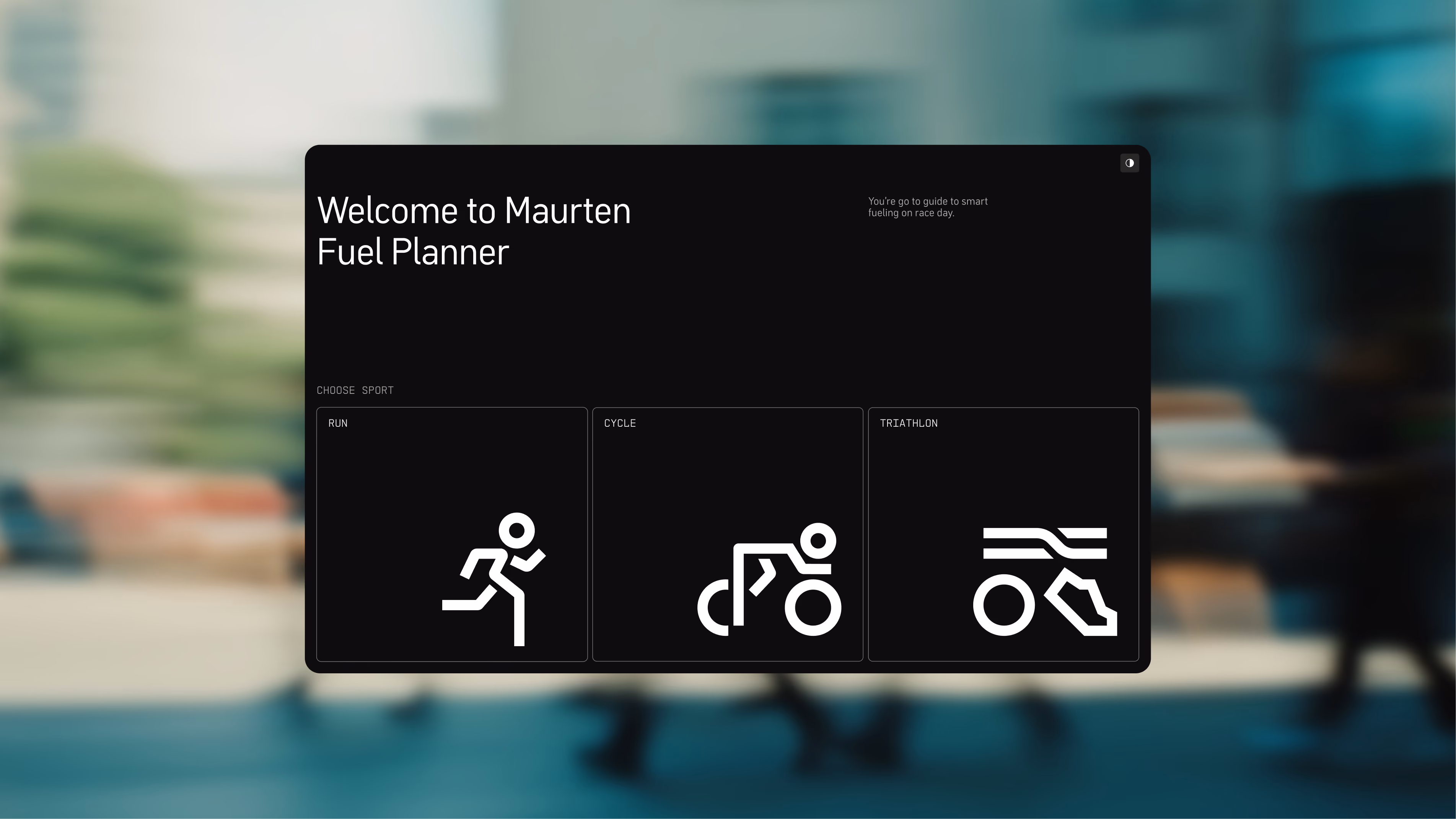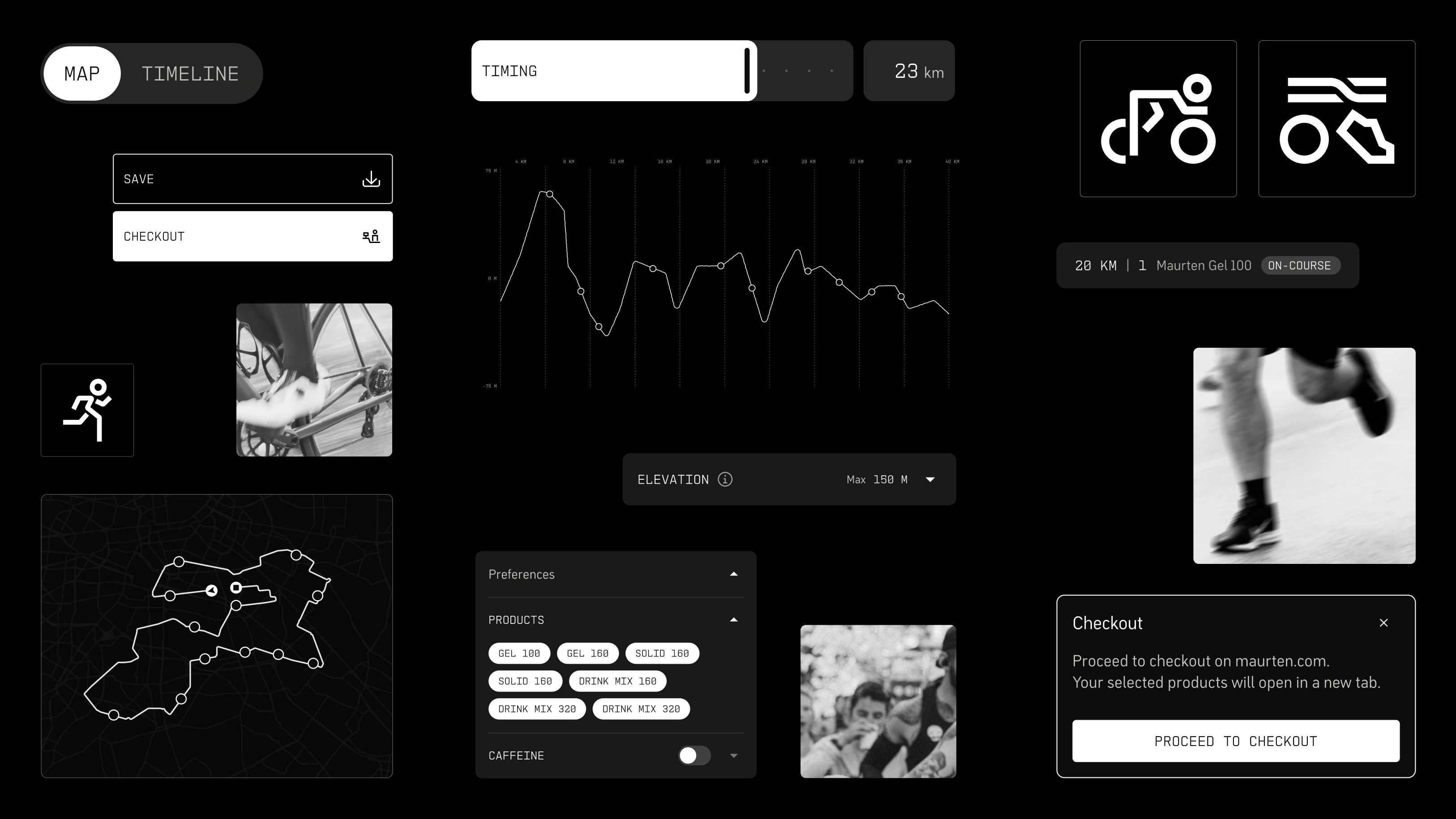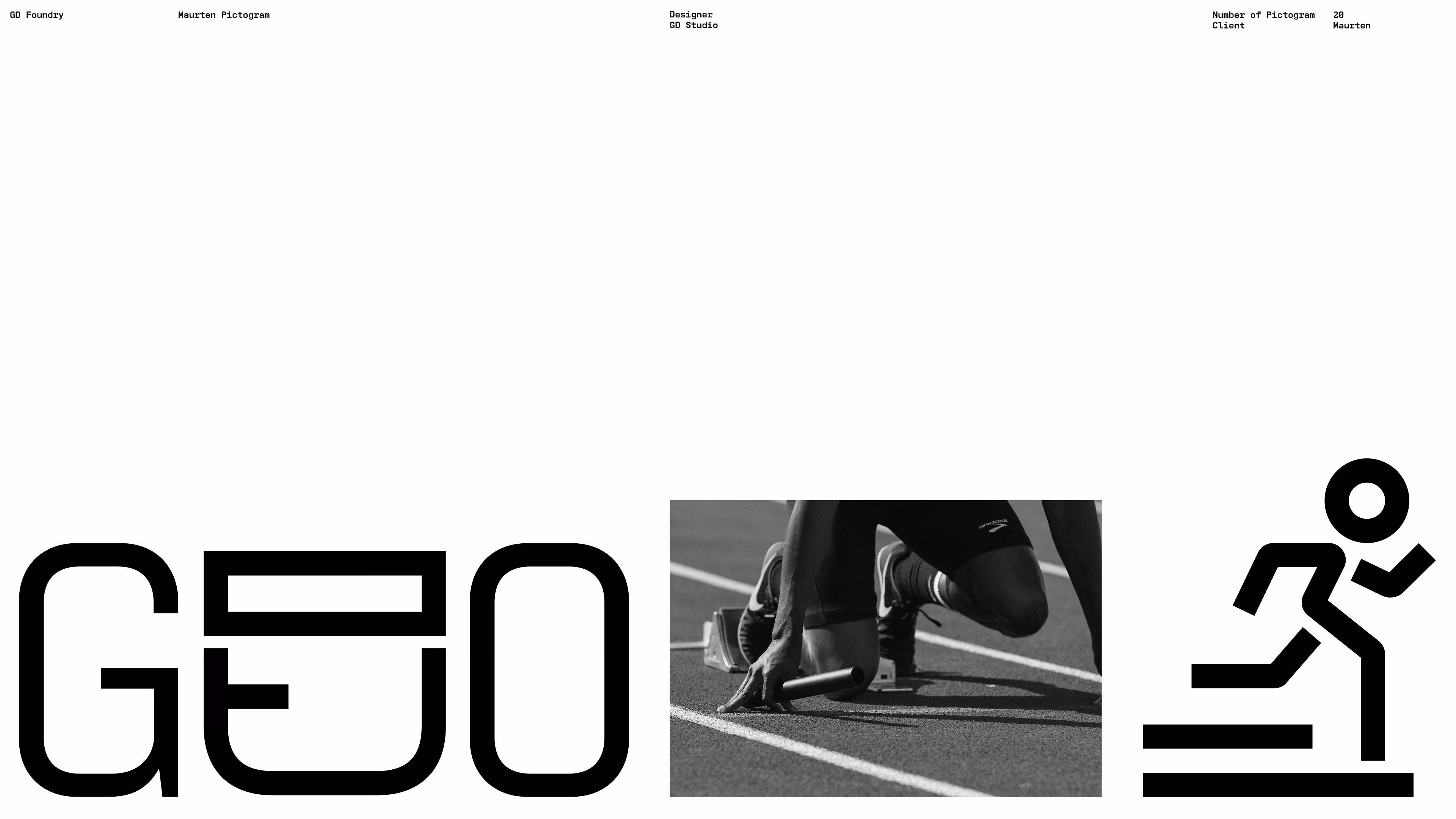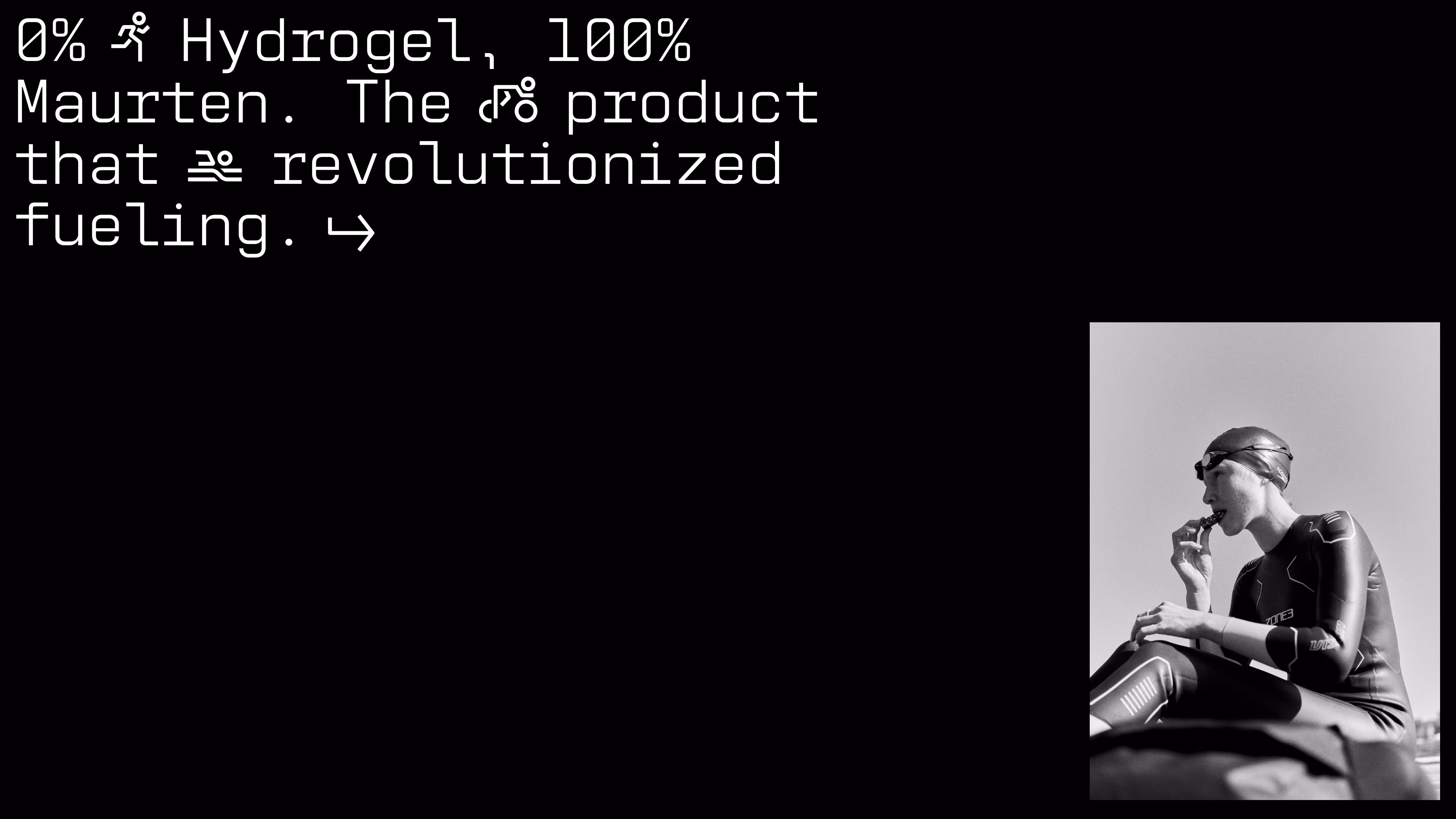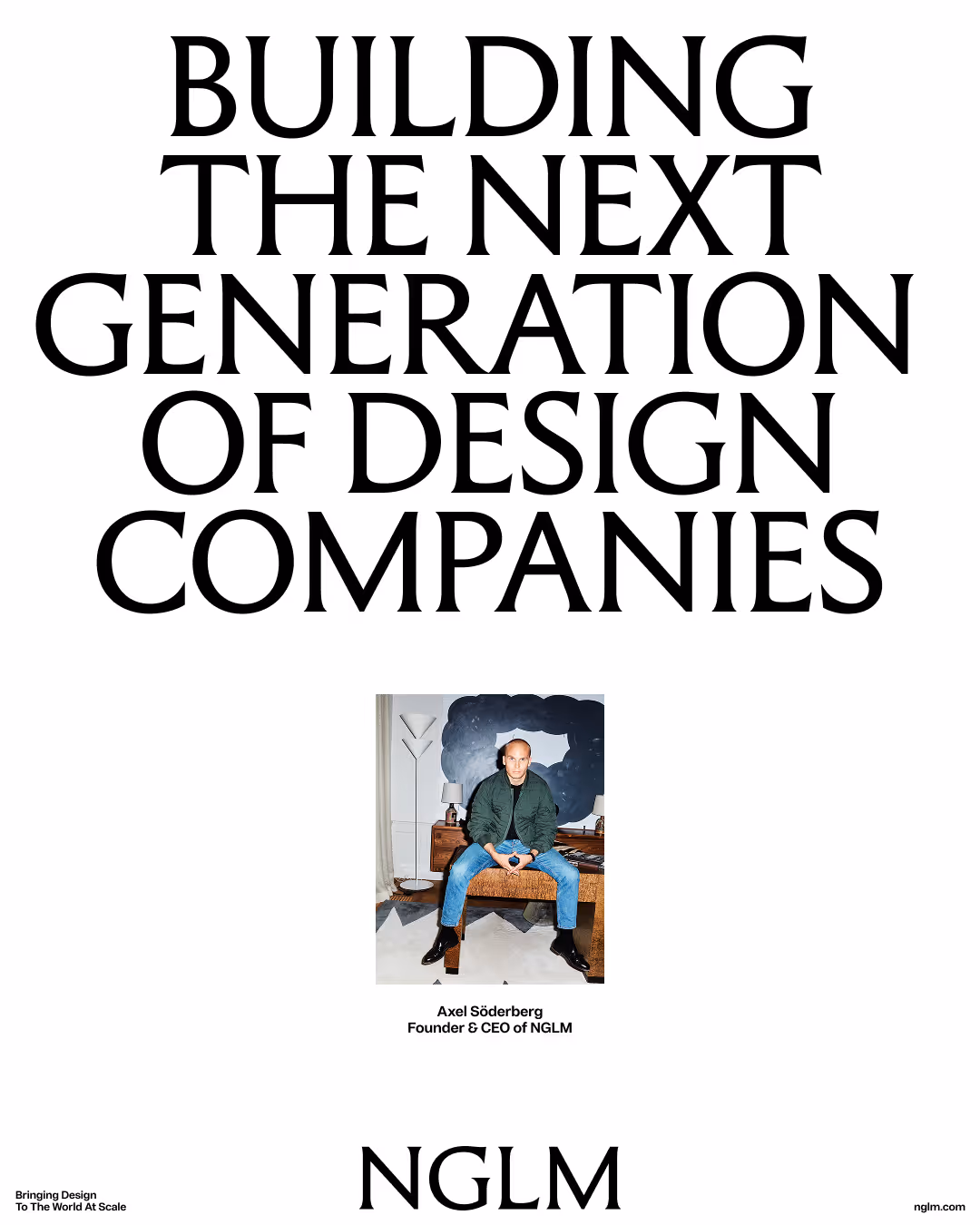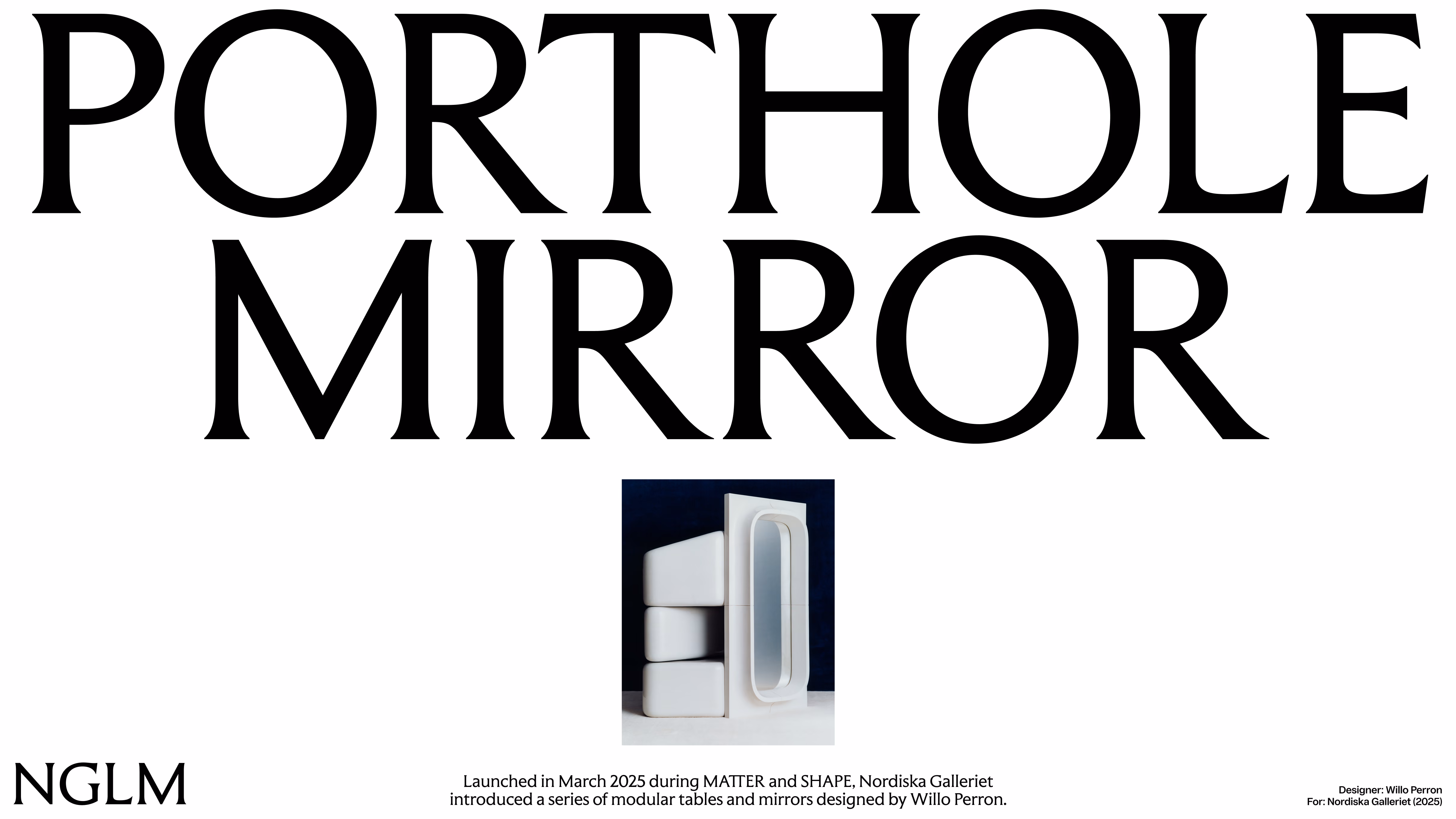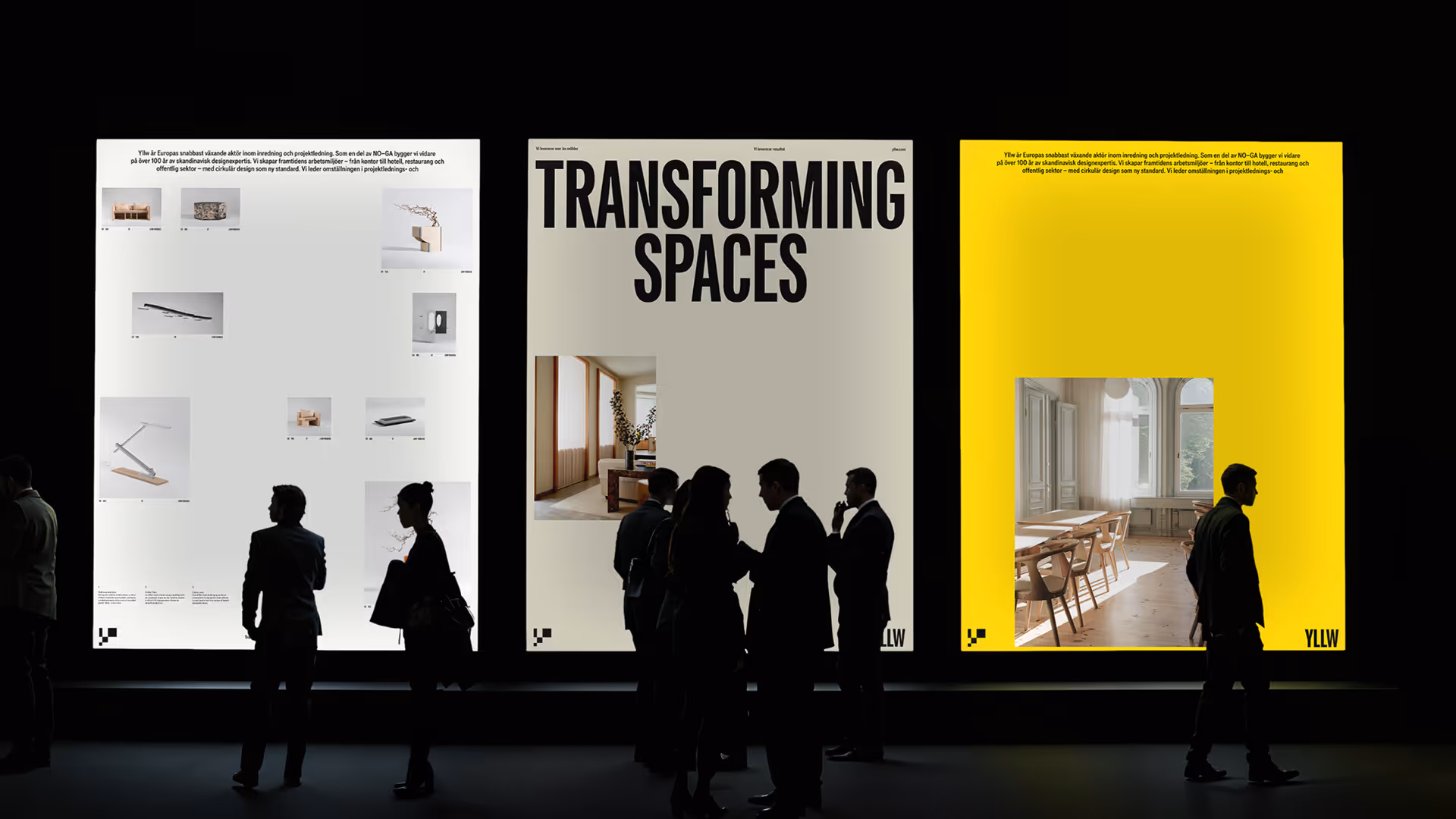
Bespoke fonts tailored to your brand
We create bespoke typefaces tailored to your brand, giving your identity a unique voice and distinctive expression. Every letter, number, and symbol is designed with your brand in mind and optimized for your specific needs, from digital and print to logos and signage. You have full control over the style, proportions, weight, and finer details.
Maurten Sans/Mono
5 Family, 18 Styles
To support Maurten’s evolving brand, we expanded their existing typeface into a more flexible, bespoke system. The update introduced two new weights, Light and Black, along with additional styles across Condensed and Wide widths. Each variant was carefully refined to ensure consistency, with subtle adjustments for balance and clarity.
Maurten Pictogram
1 Family, 20 Pictogram
We extended Maurten’s design system with a tailored set of pictograms, built on the same principles as the bespoke typefaces. Using the geometry and angles of Maurten Mono as a foundation, the icons integrate seamlessly with the typographic system, creating a clear and consistent visual language across contexts.
NGLM
(Available as retail)
1 Family, 7 Styles
For NGLM, we created a bespoke typeface, GD Trio, drawing inspiration from the classical proportions and refined letterforms of Roman inscriptions. Rooted in centuries of typographic history, we reinterpreted these forms for a contemporary context, creating a distinctive typeface that brings depth, elegance and craftsmanship to NGLM’s identity.
YLLW
(Available as retail)
4 Family, 16 Styles
For Yllw, we created a bespoke Grotesk variable font built around the idea of transformation. Designed to shift, adapt, and respond to its surroundings, the typeface reflects Yllw’s approach to reshaping spaces and unlocking their potential. Its variable nature allows the typography to move seamlessly between different expressions, creating a flexible and dynamic voice that mirrors Yllw’s work. Designed by GD Foundry, the typeface gives the identity a distinctive typographic foundation built for change.
Praxis
1 Family, 4 Styles
Rooted in the classical serifs of medical journals and refined into a humanist semi-sans, GD Praxio carries warmth, authority and credibility in equal measure. Its proportions and stroke modulation set a natural reading rhythm, legible across long-form research and real-time chat alike, confident without turning cold. It signals trust without rigidity, clinical, yet human. Built for the moments AI speaks about our bodies, our health, our hearts.
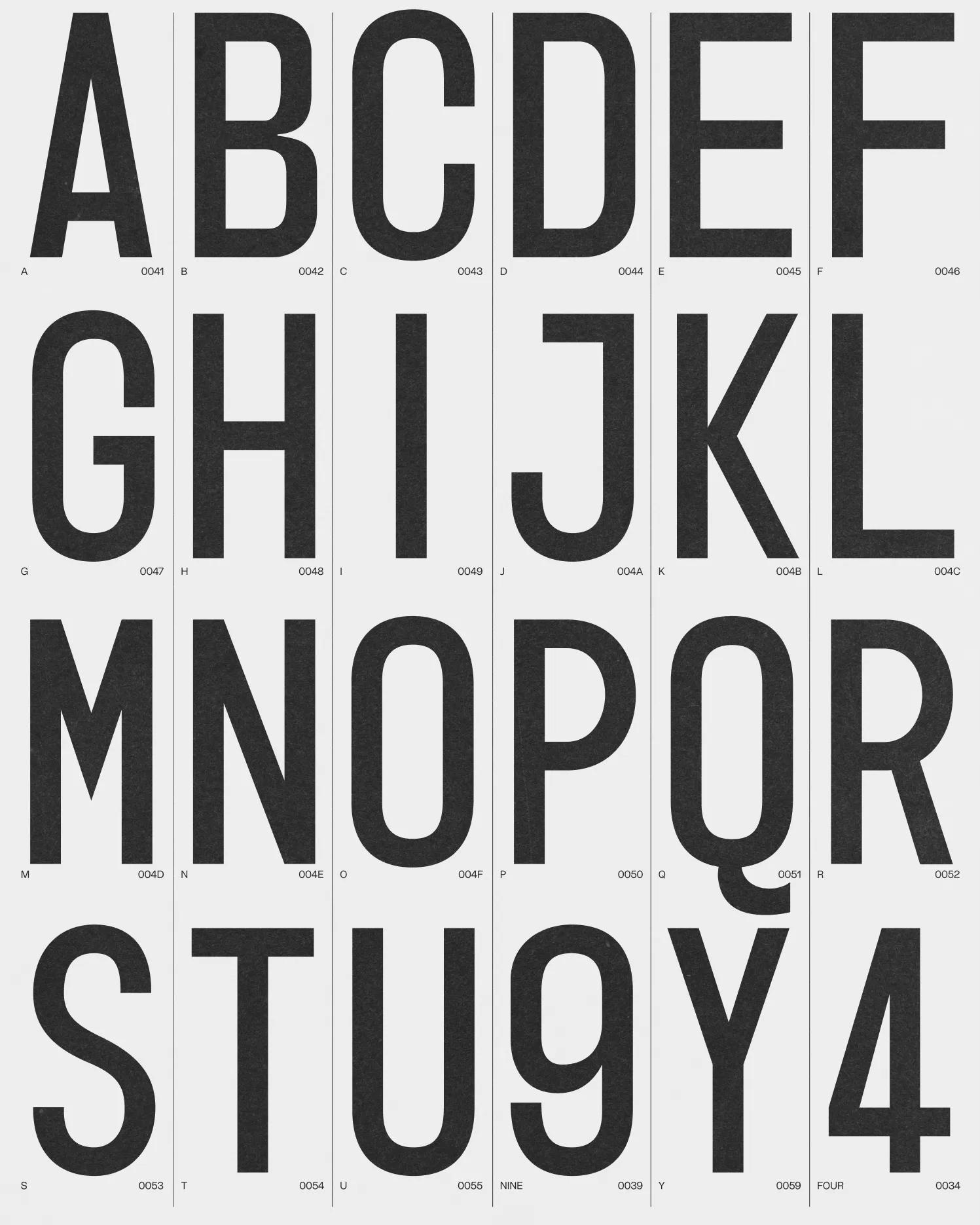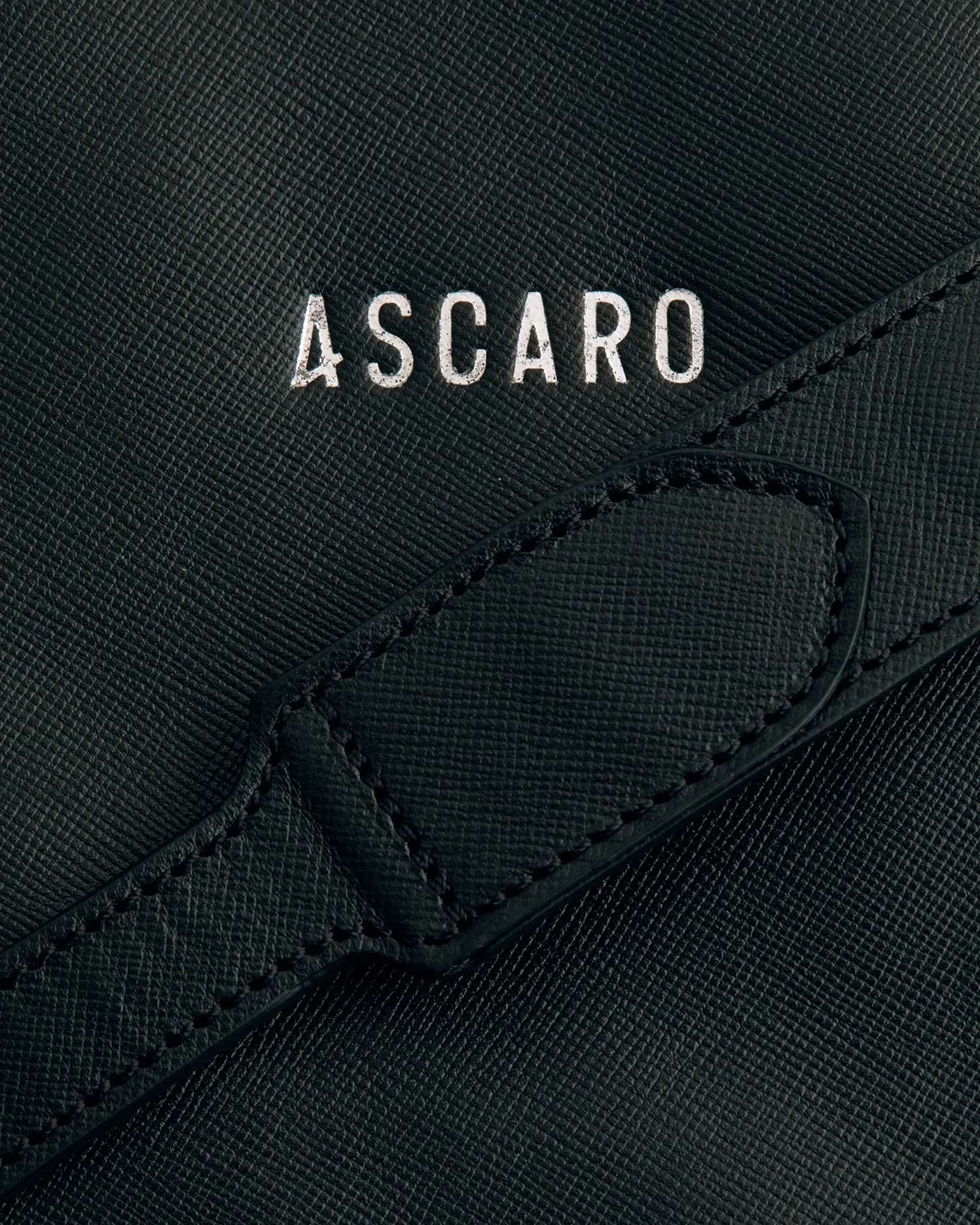
Nicoya
1 Family, 5 Styles
For Nicoya, we created a bespoke typeface inspired by the organic forms and graceful curves of Art Nouveau. Designed to feel gentle, natural, and timeless, the letterforms balance softness with a distinct character, reflecting Nicoya’s focus on purity, vitality, and balance. Created as a core part of the identity, the typeface gives the brand a unique typographic voice that feels both refined and alive.
Ascaro
1 Family, 1 Style
A padel court measures twenty by ten meters, a double square, a ratio unique to the sport. Ascaro Sans is drawn straight from it, every letter, cap height, counter, stroke, governed by the court's own geometry.   The alphabet is uppercase only, flat and engineered like court signage and match numbering. Straight-cut terminals, even stroke weight, numerals built for instant reading, the clarity a scoreboard needs.   One letter breaks the system: the A, its leg kicking outward to trace the ball's bounce off the glass, the move that defines padel. Not a flourish, the game's physics drawn into the letterform. Ascaro Sans, a typeface built on the court it plays on.
When we created our type foundry, we envisioned a place built by designers, for designers. We understand the brand equity that lives inside a truly well-crafted typeface, the cultural weight it carries, the emotion it shapes, and the quiet authority it brings to any identity.
Lyko
1 Family, 9 Styles
We create bespoke typefaces tailored to your brand, giving your identity a unique voice and distinctive expression.
Novum
1 Family, 9 Styles
We create bespoke typefaces tailored to your brand, giving your identity a unique voice and distinctive expression.
Edastra
1 Family, 9 Styles
We create bespoke typefaces tailored to your brand, giving your identity a unique voice and distinctive expression.
Uniplay
1 Family, 9 Styles
We create bespoke typefaces tailored to your brand, giving your identity a unique voice and distinctive expression.
Sequence
1 Family, 9 Styles
We create bespoke typefaces tailored to your brand, giving your identity a unique voice and distinctive expression.
Jureskogs
1 Family, 9 Styles
We create bespoke typefaces tailored to your brand, giving your identity a unique voice and distinctive expression.